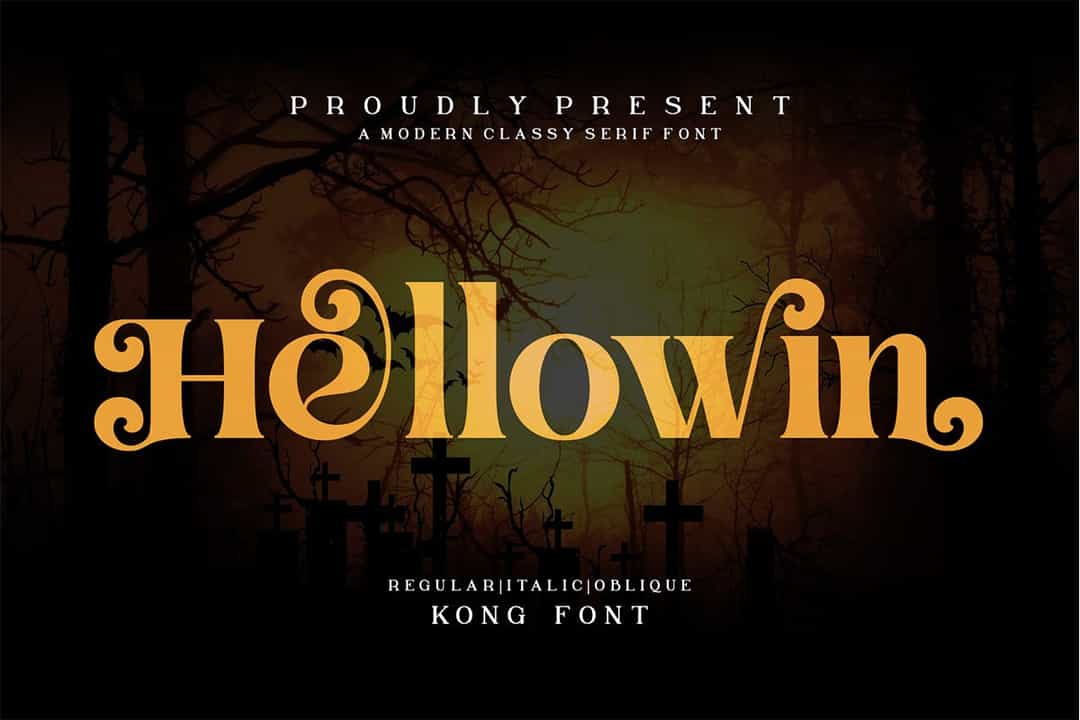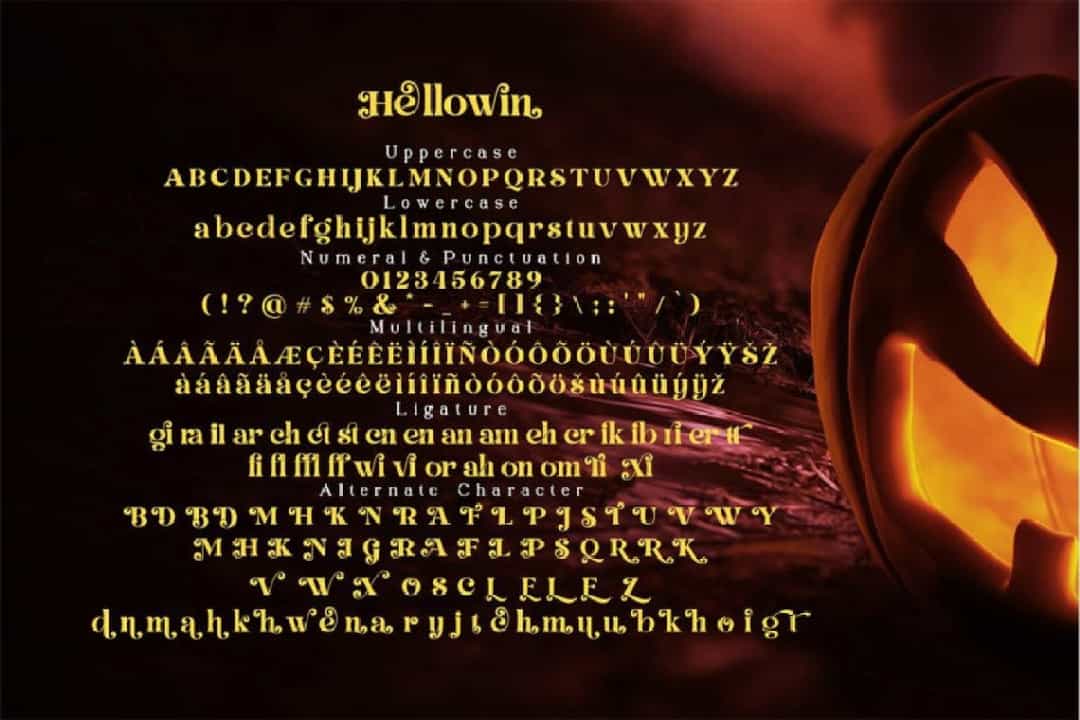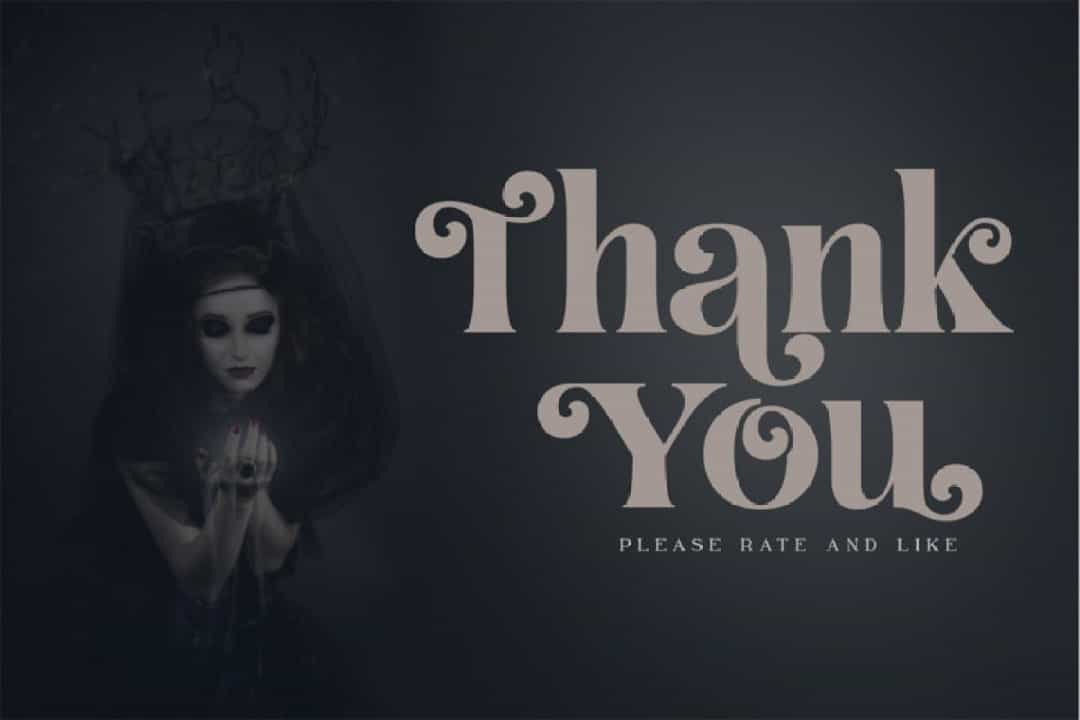
Hellowin is a serif display font of retro look with over 100 ligatures, small caps and swashes. As a font created and shared by Fontkong, Hellowin is suggested for every future project that includes writing.